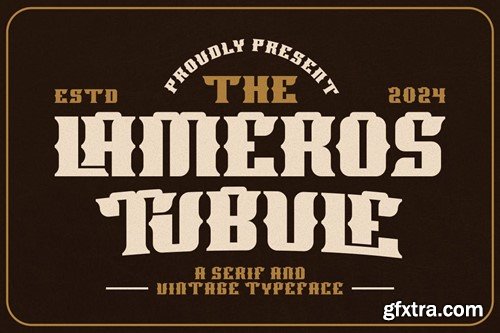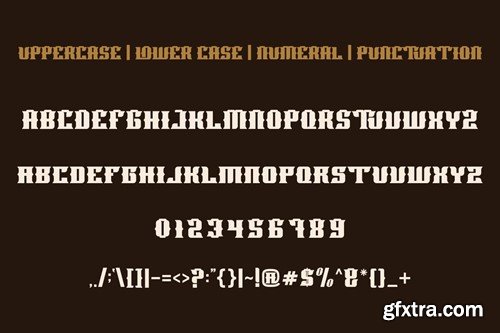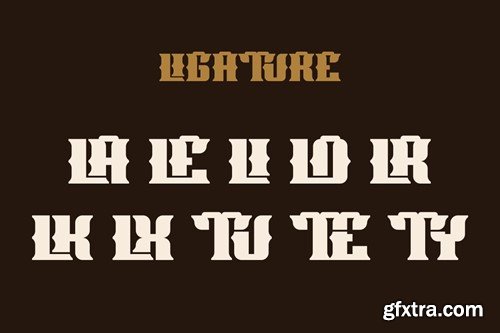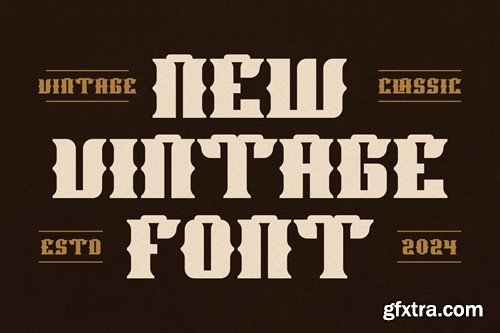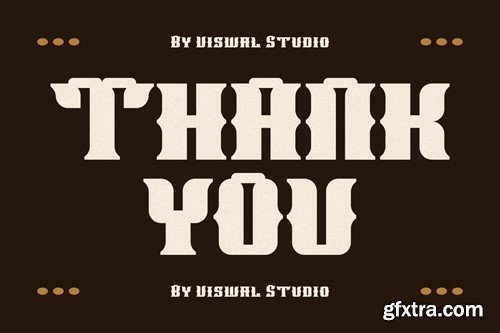
拉莫斯管状 - 经典字体 QW4DT3W
Lameros Tubule - Vintage Font
Presenting Lameros Tubule - Font is suitable for badge, labels, logo, branding, magazine, poster and etc. Our fonts have Uppercase & Lowercase, Numeral & Punctuation, Multilingual support and Opentype Features. For Amazing designs you can mix with other fonts as a complement. File Includes Happy creating with our fonts. Regards, viswal studios